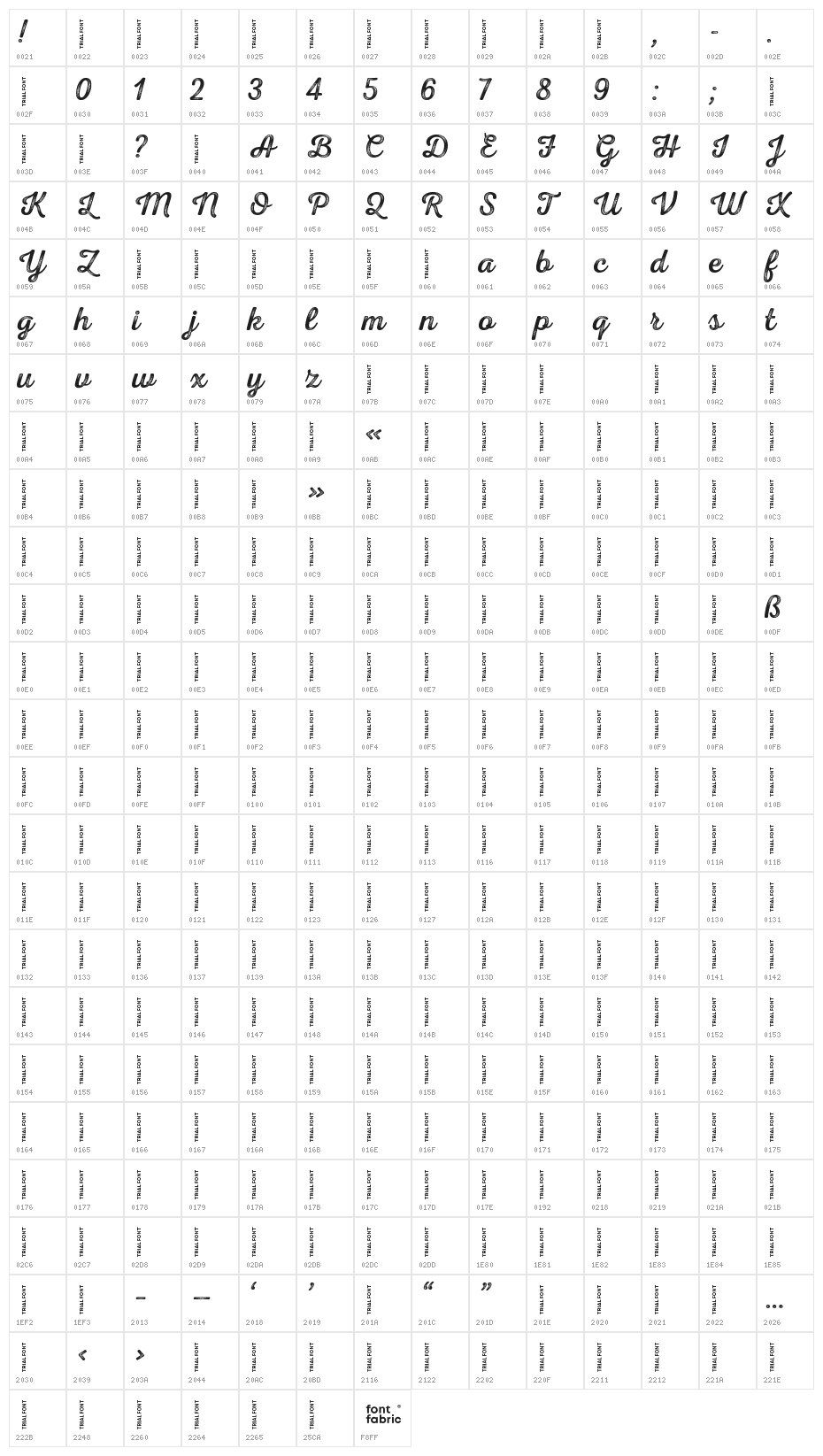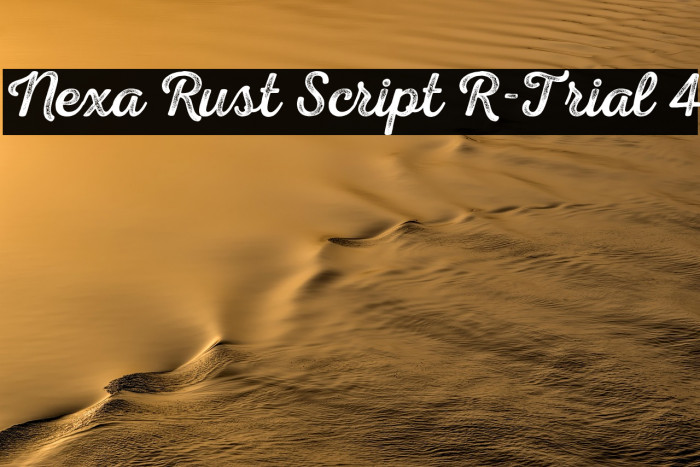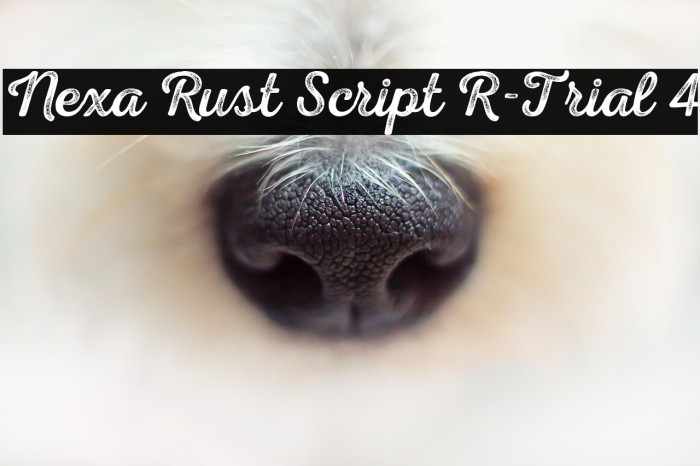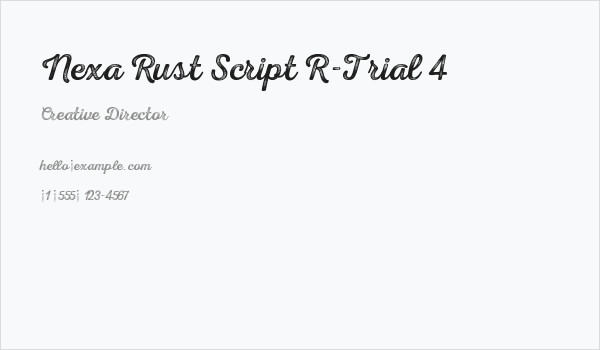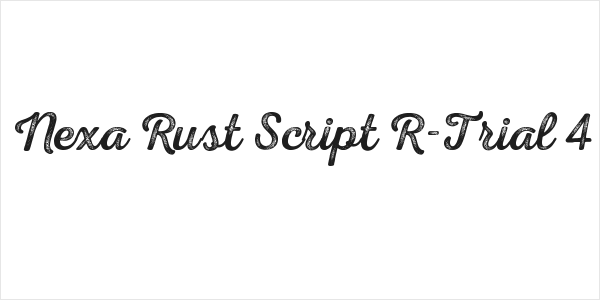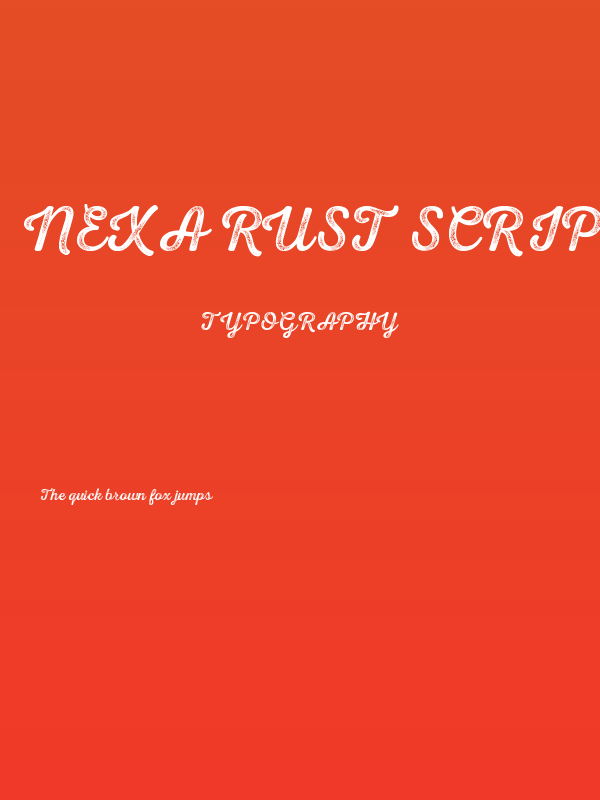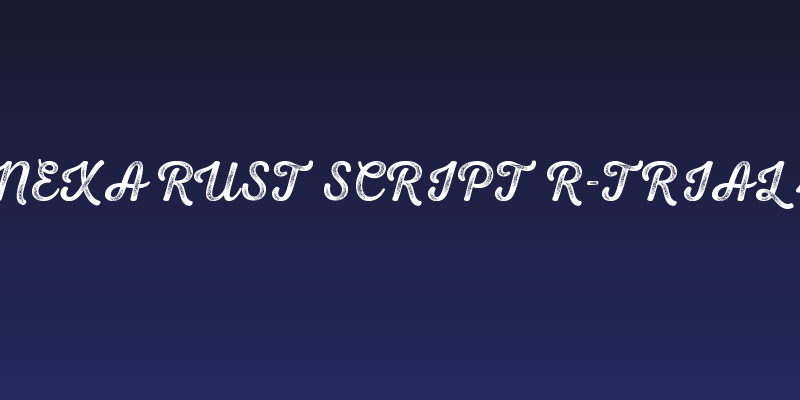
Nexa Rust Script R-Trial 4 Font
Nexa Rust Script R-Trial 4 Description
This font features a bold, textured script style with a hand-drawn appearance. The letters are connected, creating a flowing and dynamic look. The texture gives it a rustic and vintage feel, reminiscent of chalk or brush strokes. The uppercase letters are slightly larger and more pronounced, while the lowercase letters maintain a consistent flow. Numbers and special characters are designed to match the overall aesthetic, maintaining the same textured and bold style. The font's unique character makes it suitable for creative and artistic projects.
| Proposed Projects | Ideal for branding, packaging, posters, and invitations where a vintage or handcrafted look is desired. |